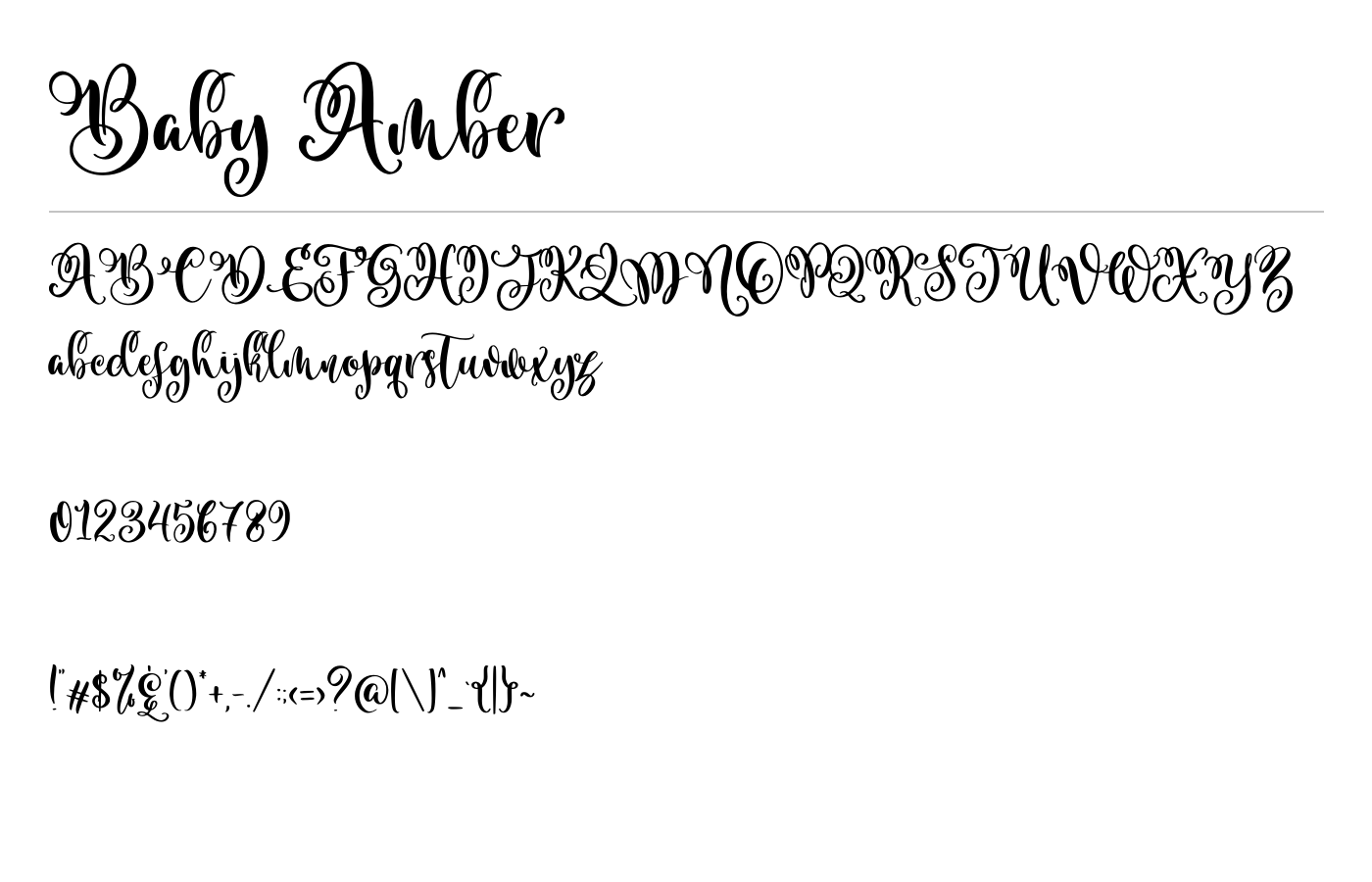
Baby Amber is a decorative script font featuring elegant, flowing letterforms with high contrast strokes and charming swashes. Its playful yet sophisticated style makes it perfect for invitations, branding, and packaging that seek a personal and artistic touch. This font shines in designs where a whimsical and graceful appearance is desired.
Baby Amber Font
About Baby Amber Font